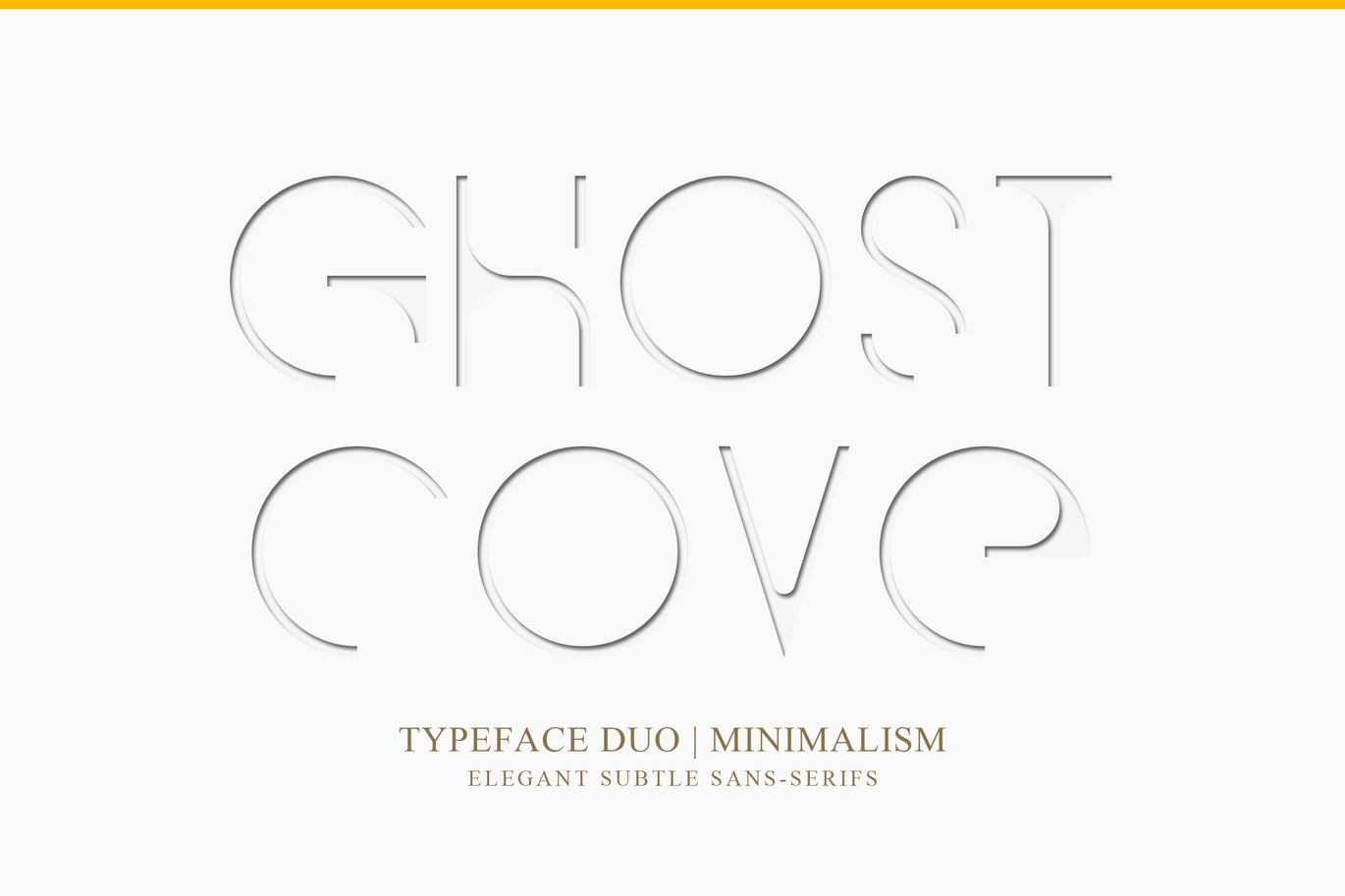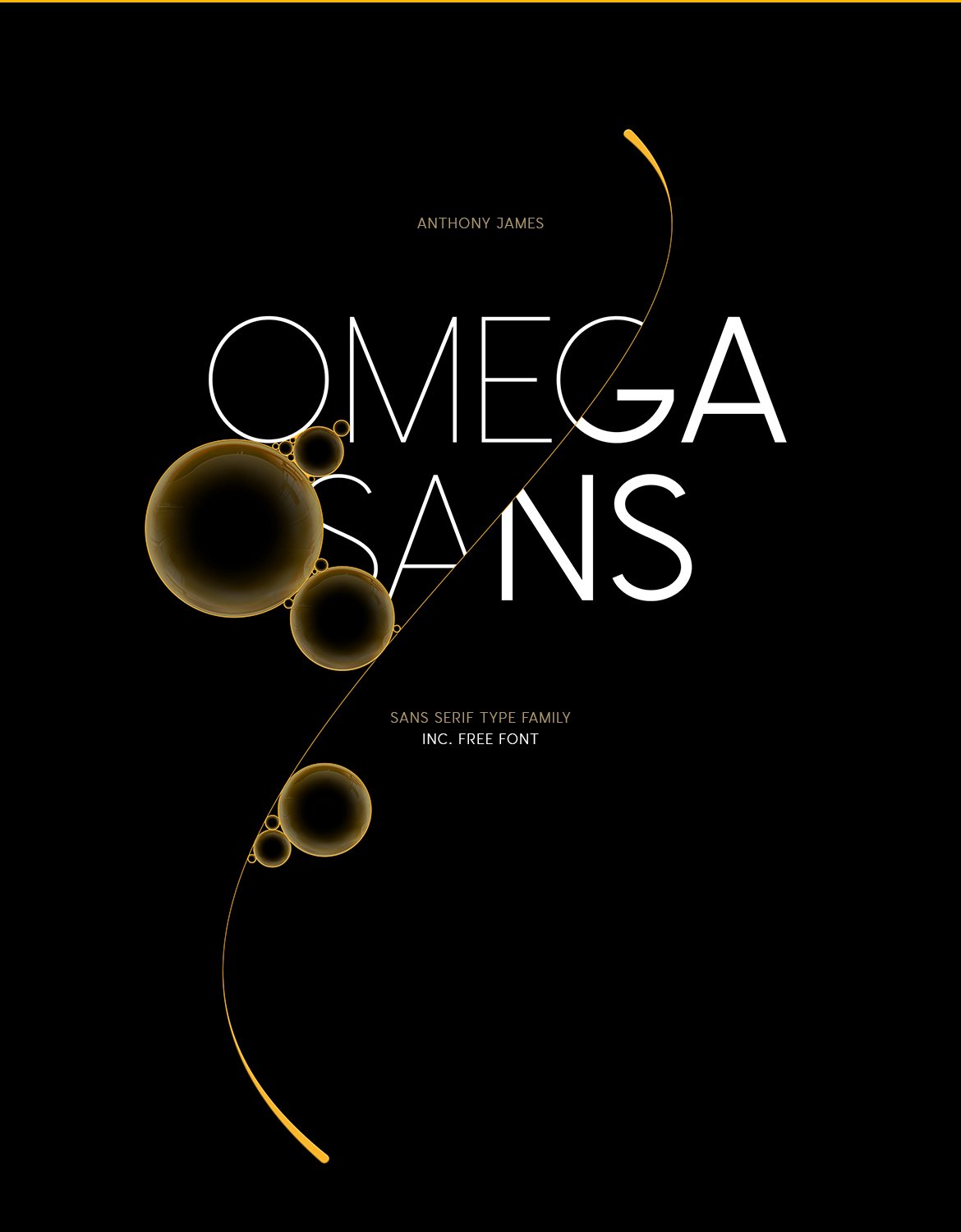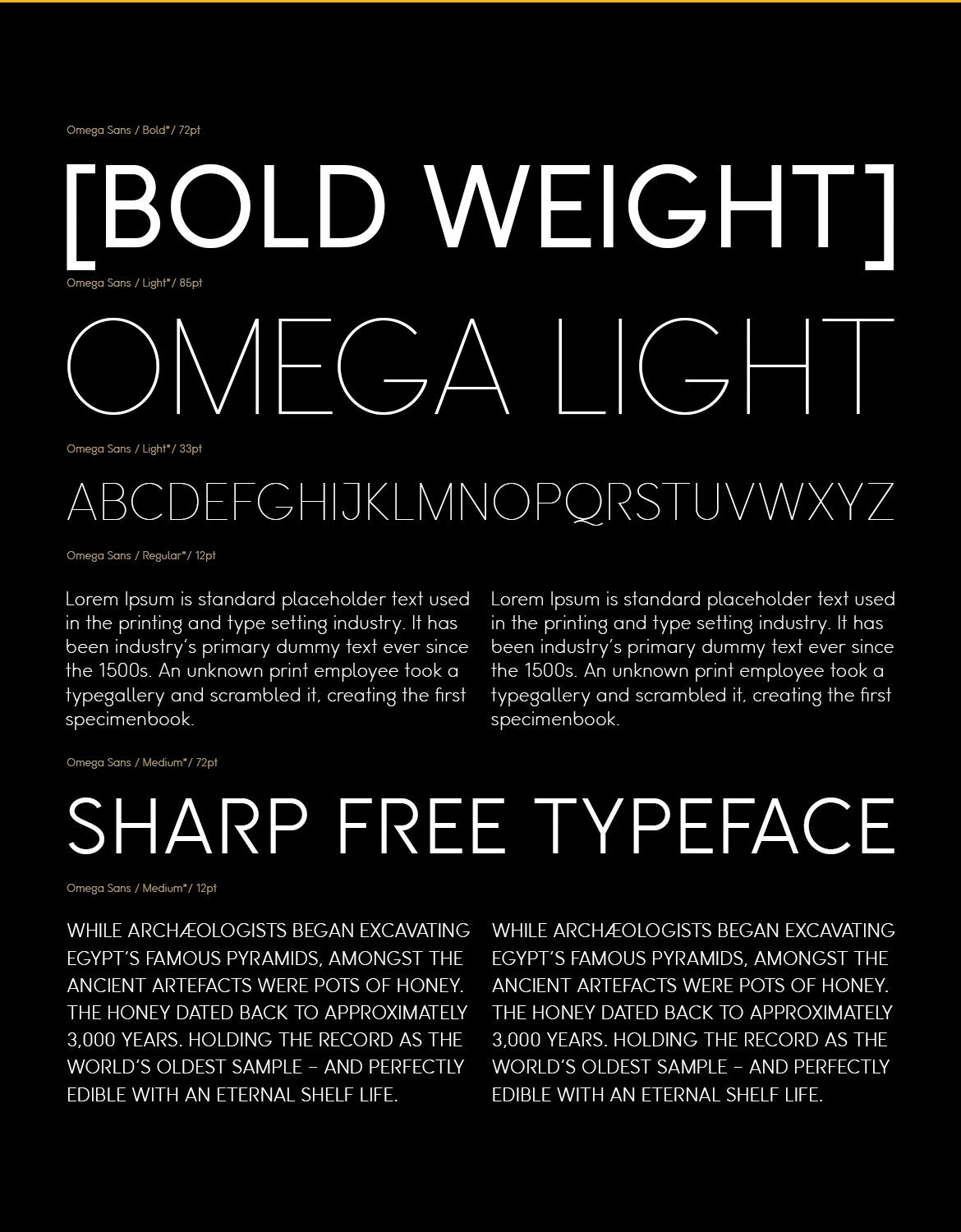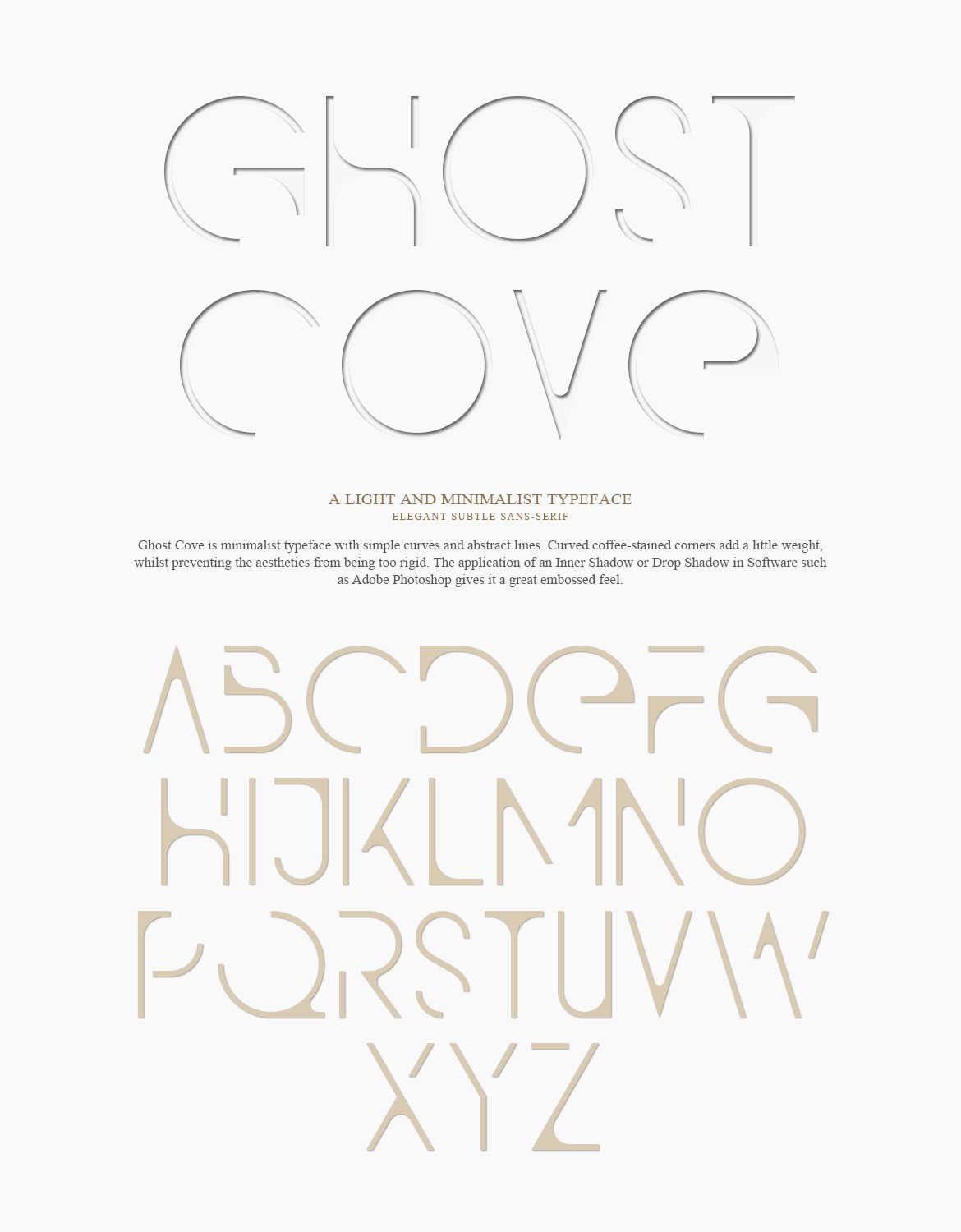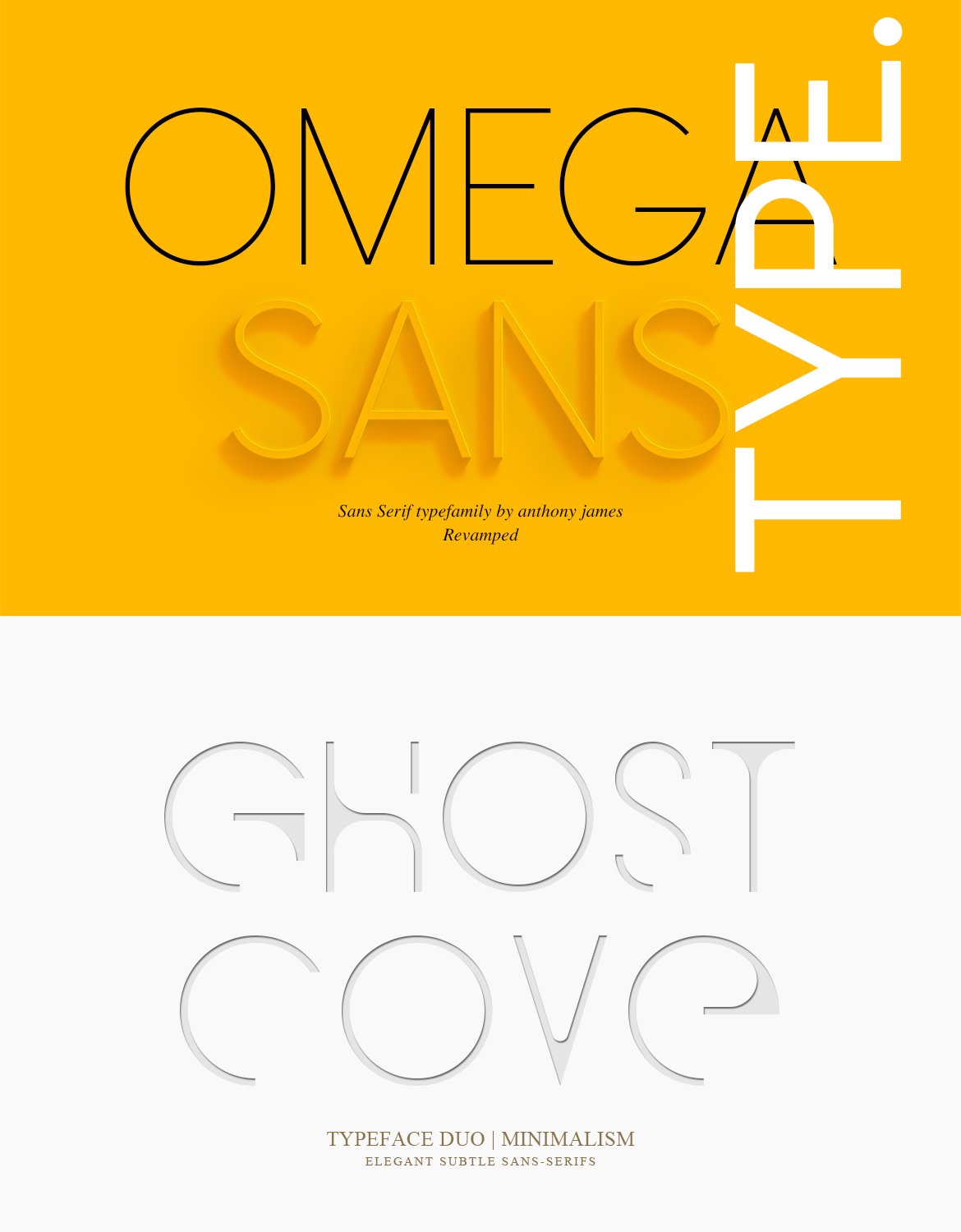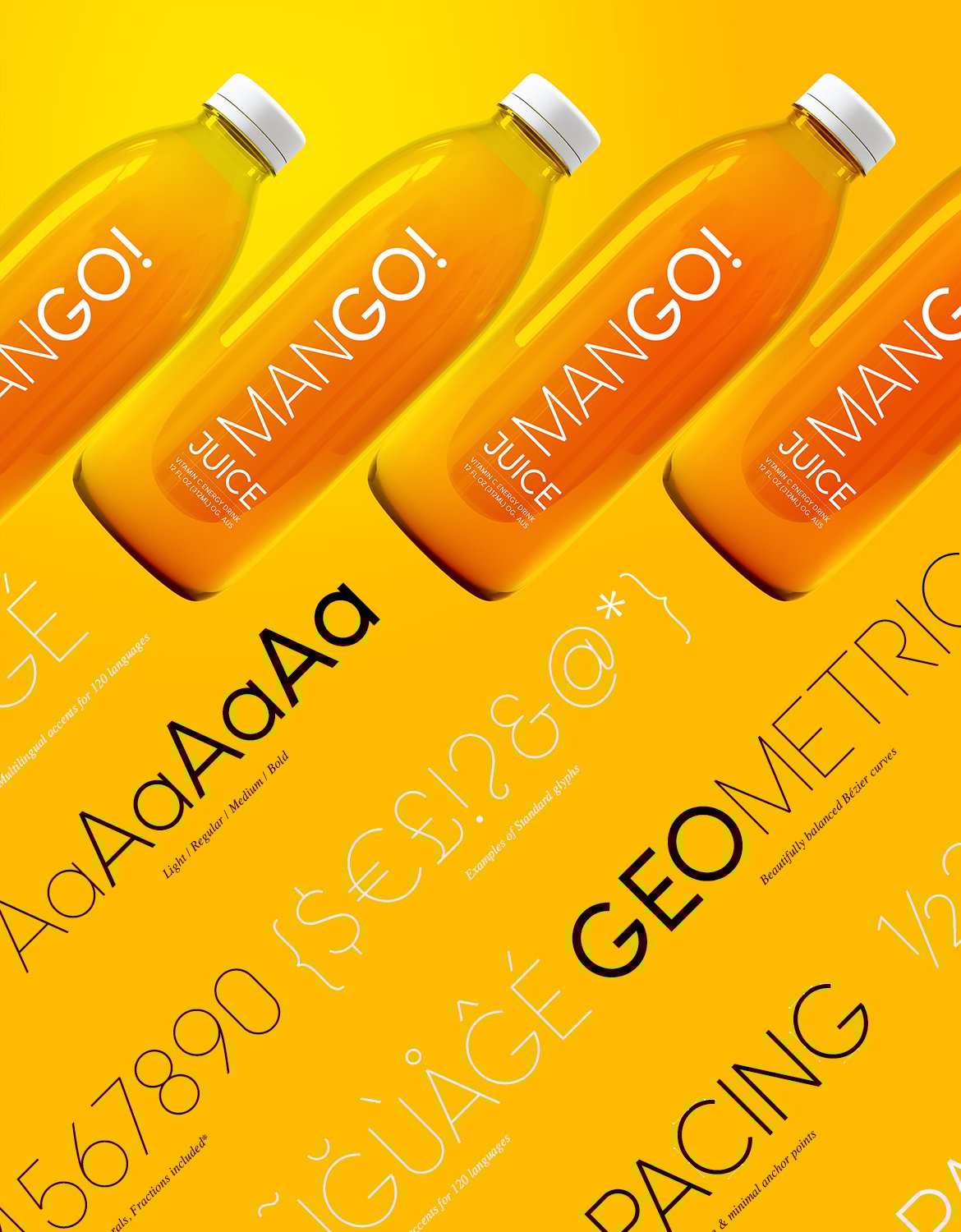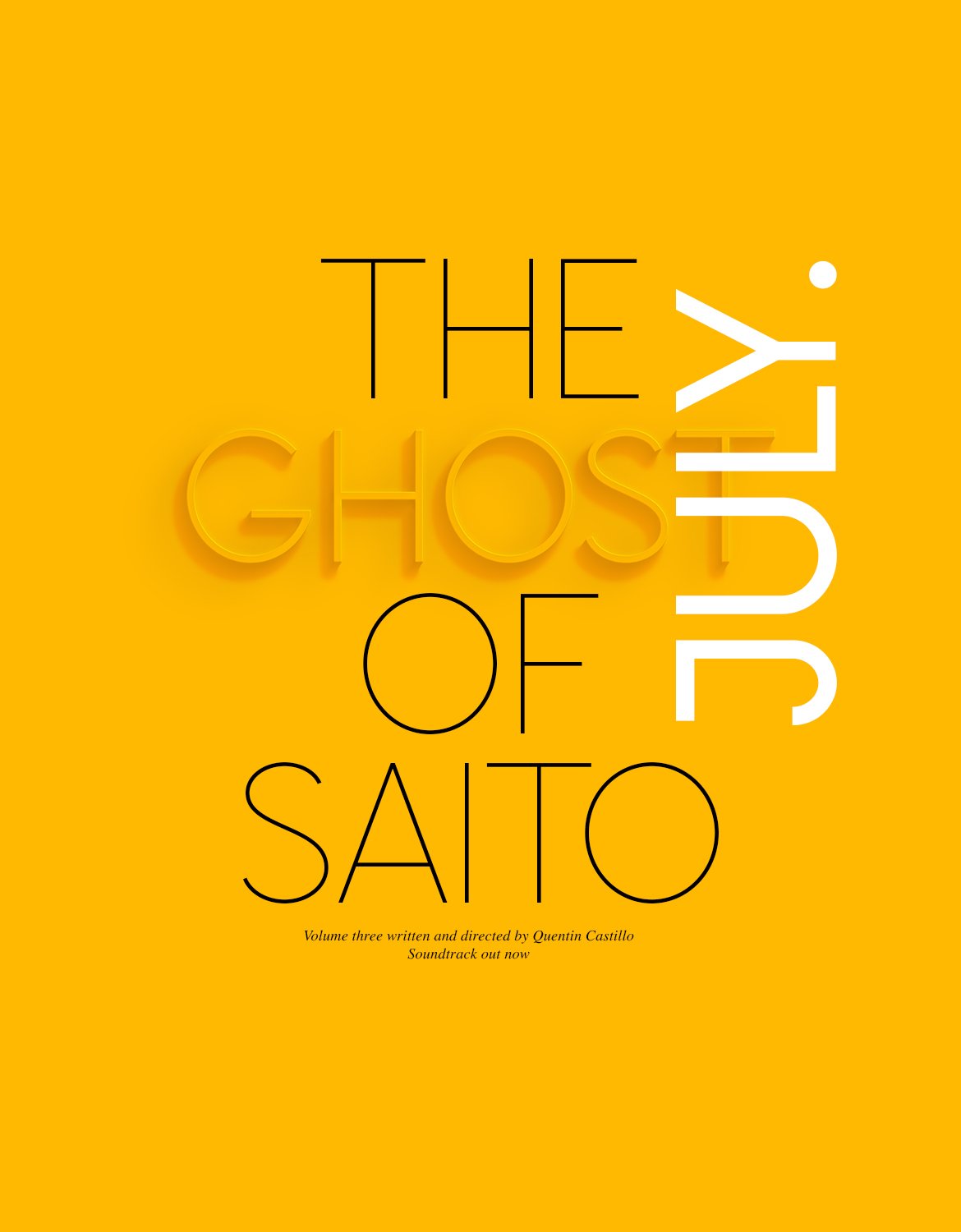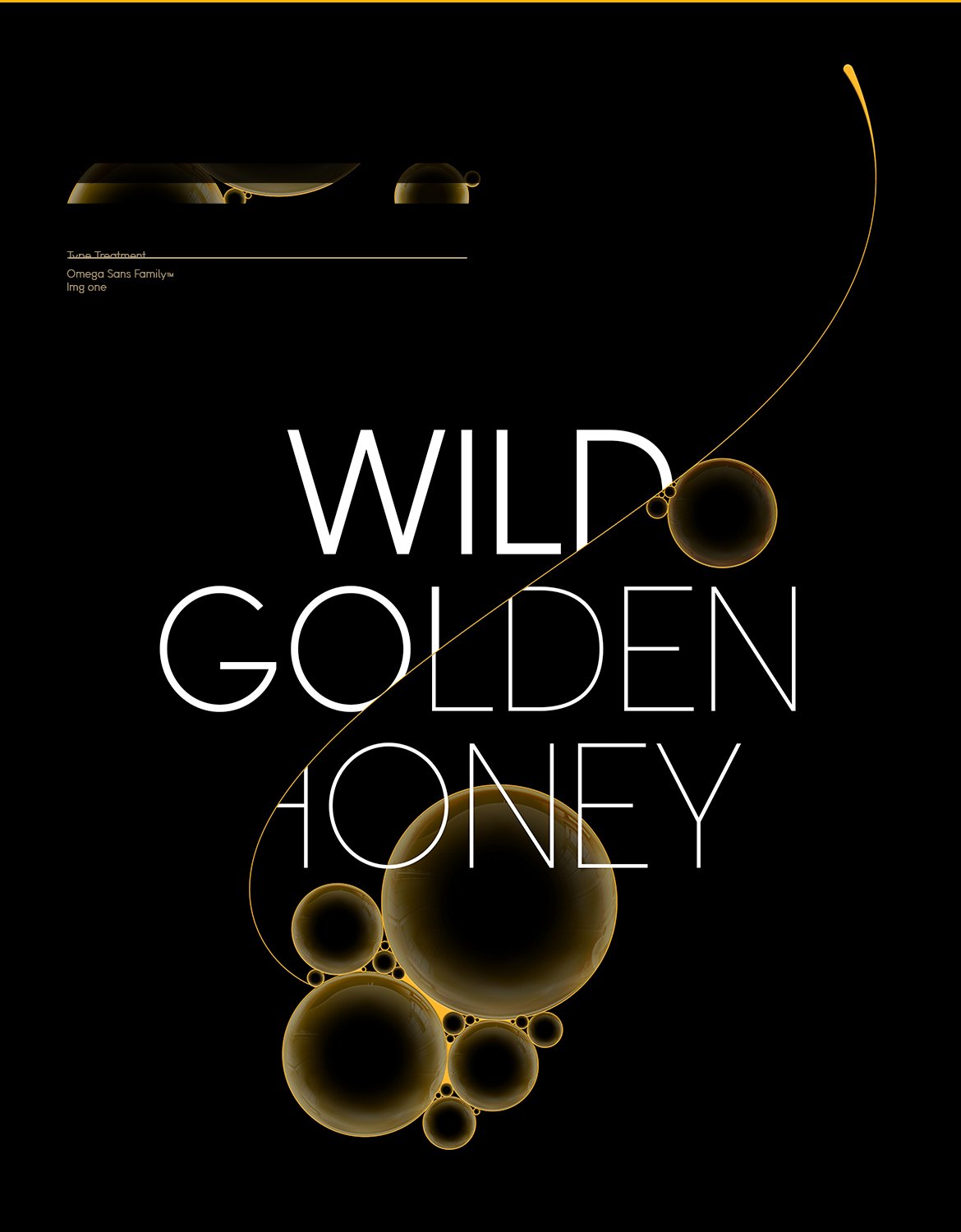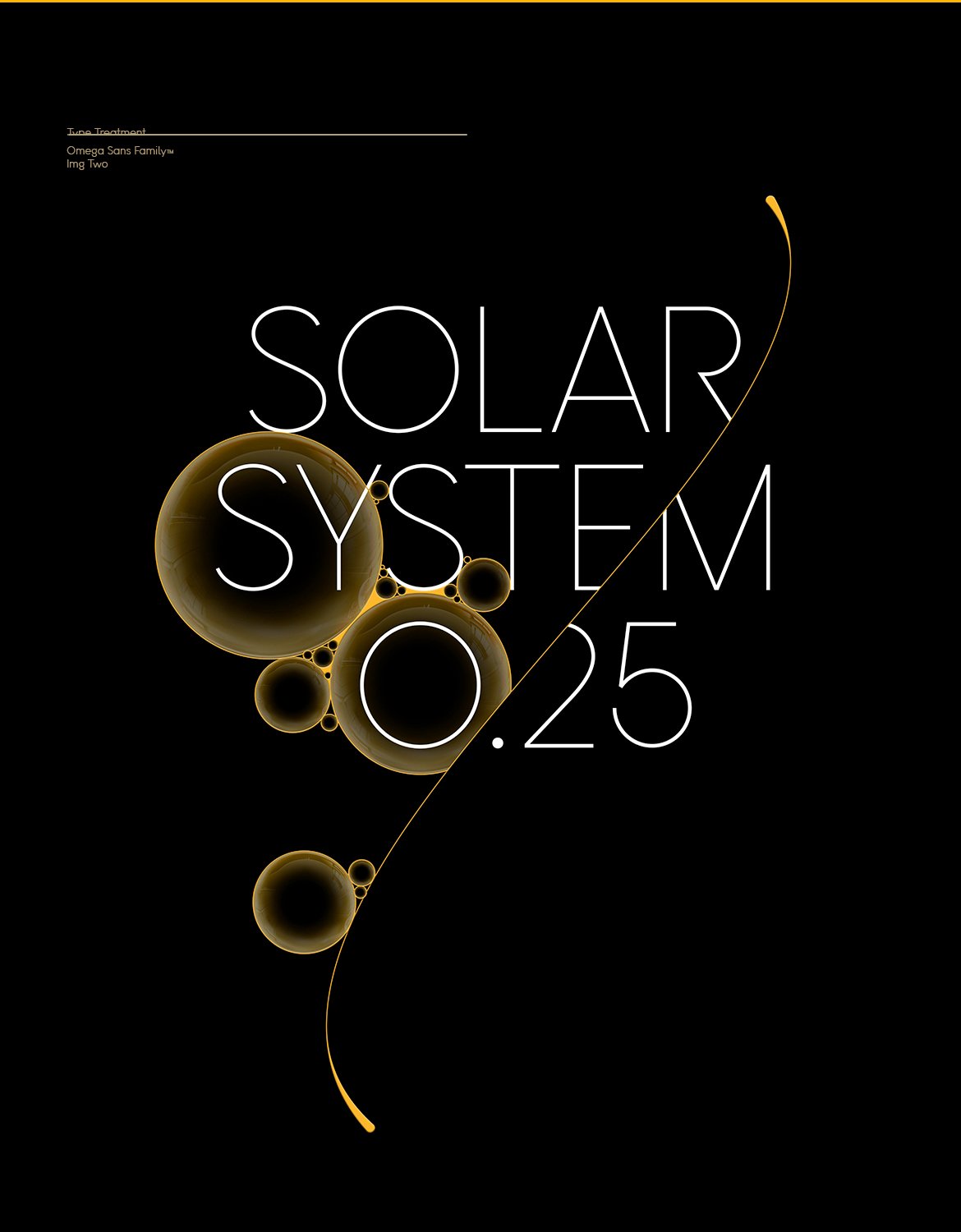
Ghost Cove | Omega Sans | Font Duo
Ghost Cove is minimalist typeface with simple curves and abstract lines, leaving something to the imagination. The curved ‘coffee stain’ corners add a little weight and prevent the aesthetics from being too rigid. The application of an Inner Shadow or Drop Shadow in Software such as Adobe Photoshop gives it a great embossed feel.